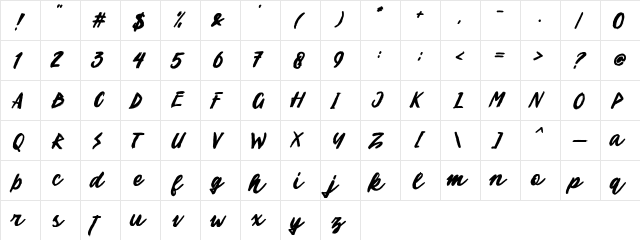
Venator Demo Regular
Design Context for Venator Demo Typeface
Venator Demo is a composed and adaptable typeface that performs quietly and consistently across a wide range of design contexts.